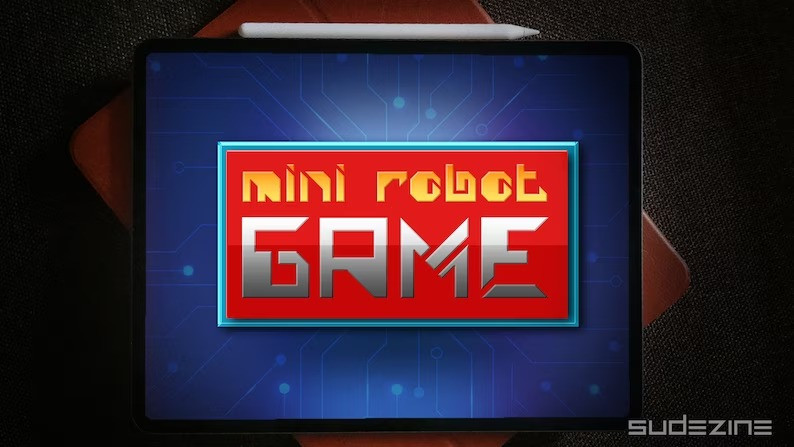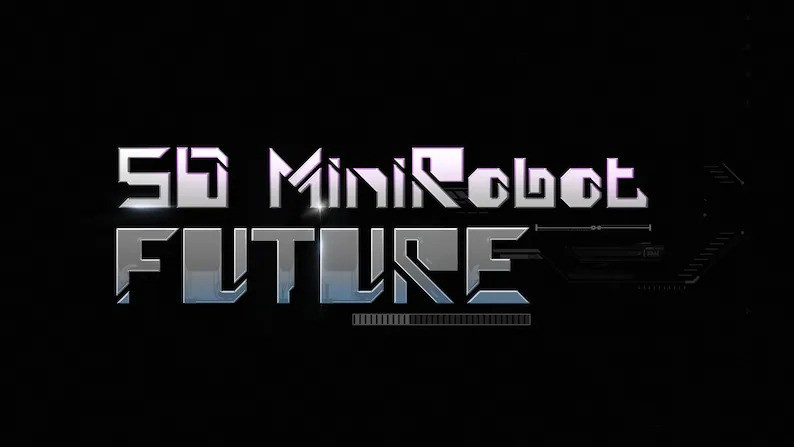
SD Mini Robot Font
SD Mini Robot Font is a Futuristic Game Font, Use logos, quotes, invitations, greeting cards, journals, posters, clothing, and more. It can easily be matched to an incredibly large set of projects, so add it to your creative ideas and notice how it makes them stand out!